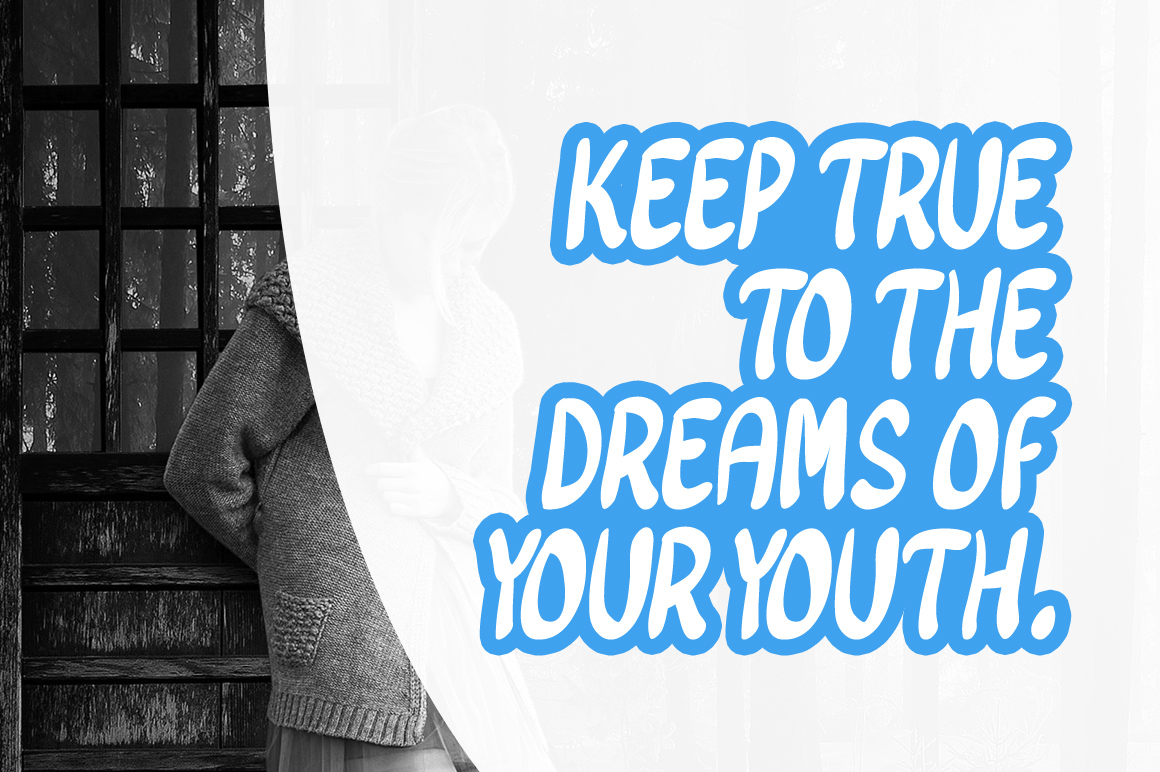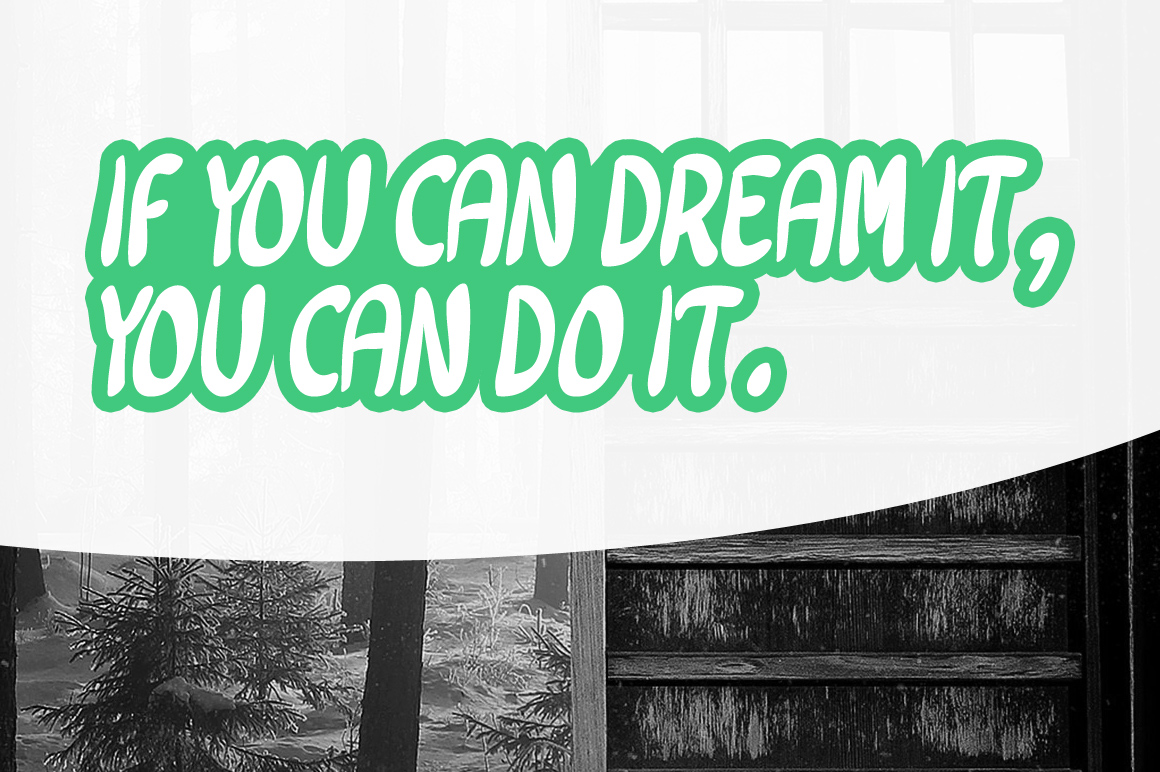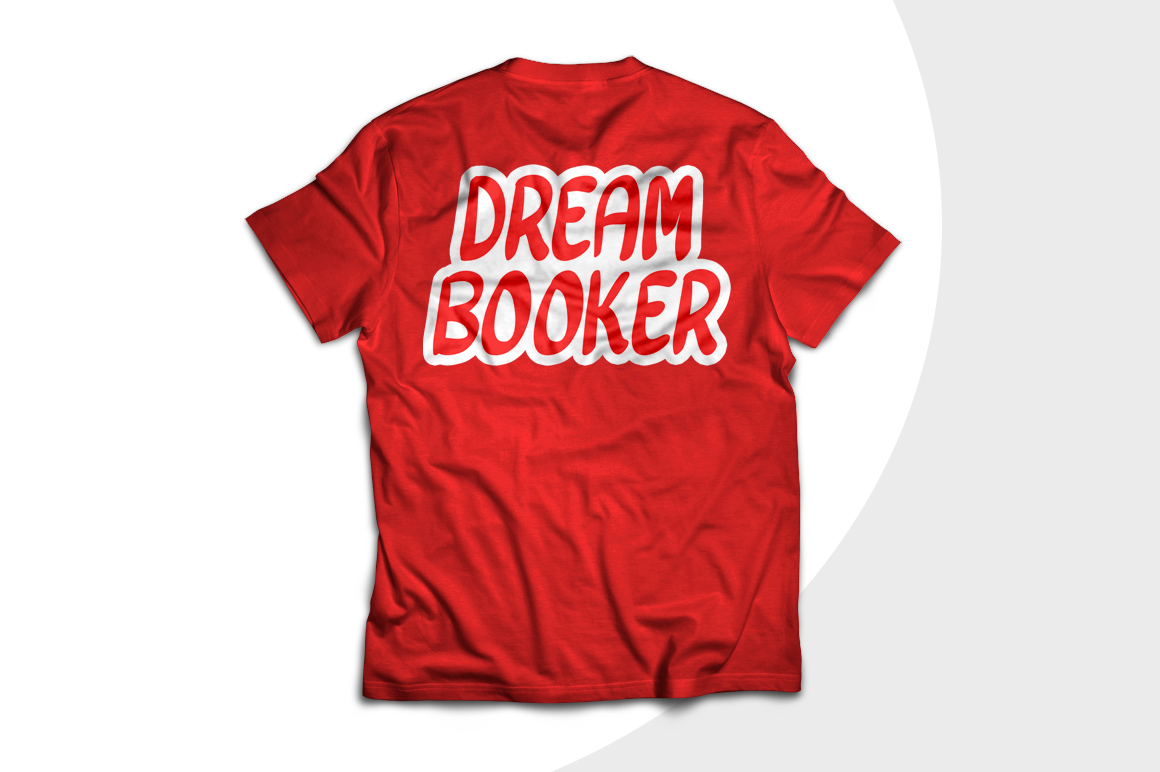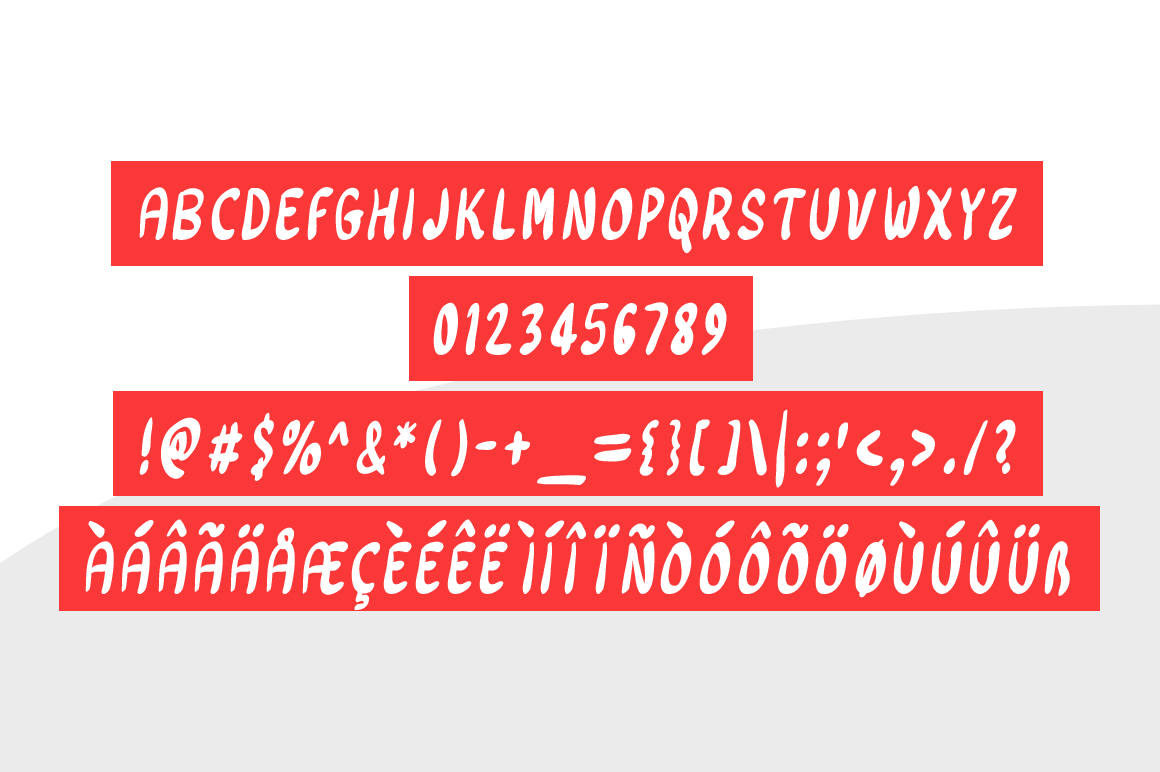
The Dream Booker Font: A Game-Changer for Your Designs
Have you ever been in the middle of a design project, and suddenly, you’re stuck on finding the perfect font? I recall a particularly frustrating experience while working on a branding project for a trendy boutique hotel. My client wanted a font that was bold, eye-catching, and would make their signage stand out. After hours of scouring font libraries, I stumbled upon the Dream Booker font. It was love at first sight! ✨
With its thick outline and contemporary feel, Dream Booker instantly elevated my design and exceeded my client’s expectations. If you’re a designer, crafter, or creative hobbyist looking for a font that packs a punch, you’re in the right place. In this article, we’ll dive into the world of Dream Booker, exploring its features, uses, and some fantastic alternatives.
An Honest Review of Dream Booker
What I Love About Dream Booker
- ✨ Bold and eye-catching: Dream Booker is designed to make a statement. Its thick outline and sharp lines make it perfect for headlines, titles, and signage.
- ✅ Versatile: Whether you’re working on a digital project or a print design, Dream Booker adapts seamlessly to various mediums.
- 💡 Instant recognition: This font is designed to grab attention. Use it to create striking visuals that stop people in their tracks.
While Dream Booker is an amazing font, there are a few things to keep in mind:
- ⚠️ Legibility at small sizes: Due to its bold nature, Dream Booker can become difficult to read at very small font sizes. Use it for headlines or titles, and consider pairing it with a simpler font for body text.
- 🤔 Limited use in body text: While Dream Booker is stunning, it’s not ideal for lengthy paragraphs. Stick to shorter texts or use it as an accent font.
If you love Dream Booker, you might also enjoy:
- Bebas Neue: A modern, bold font perfect for headlines and titles. Its clean lines make it a great alternative for a more minimalist look.
- Impact: A classic, impactful font ideal for creating striking titles. It’s similar to Dream Booker but with a slightly more traditional feel.
- Montserrat: A versatile font with a geometric feel. While not as bold as Dream Booker, its range of weights makes it perfect for both headings and body text.
- Raleway: An elegant font with a range of weights. It’s great for creating sophisticated designs and can be used alongside Dream Booker for a contrasting look.
The Backstory of Dream Booker
Dream Booker was created with the intention of crafting a font that stands out in any design. Inspired by modern signage and digital media, the designer aimed to create a bold yet versatile typeface. While the real backstory might be fictional, it’s easy to imagine a designer working late into the night, driven by the need to create something eye-catching and memorable.
| Is Dream Booker suitable for body text? | No, due to its bold nature, Dream Booker is best used for headlines or titles. For body text, consider a simpler, more readable font. |
| Does Dream Booker support OpenType features? | Yes, Dream Booker comes with a range of OpenType features, including stylistic alternates and glyphs, which can enhance your designs. |